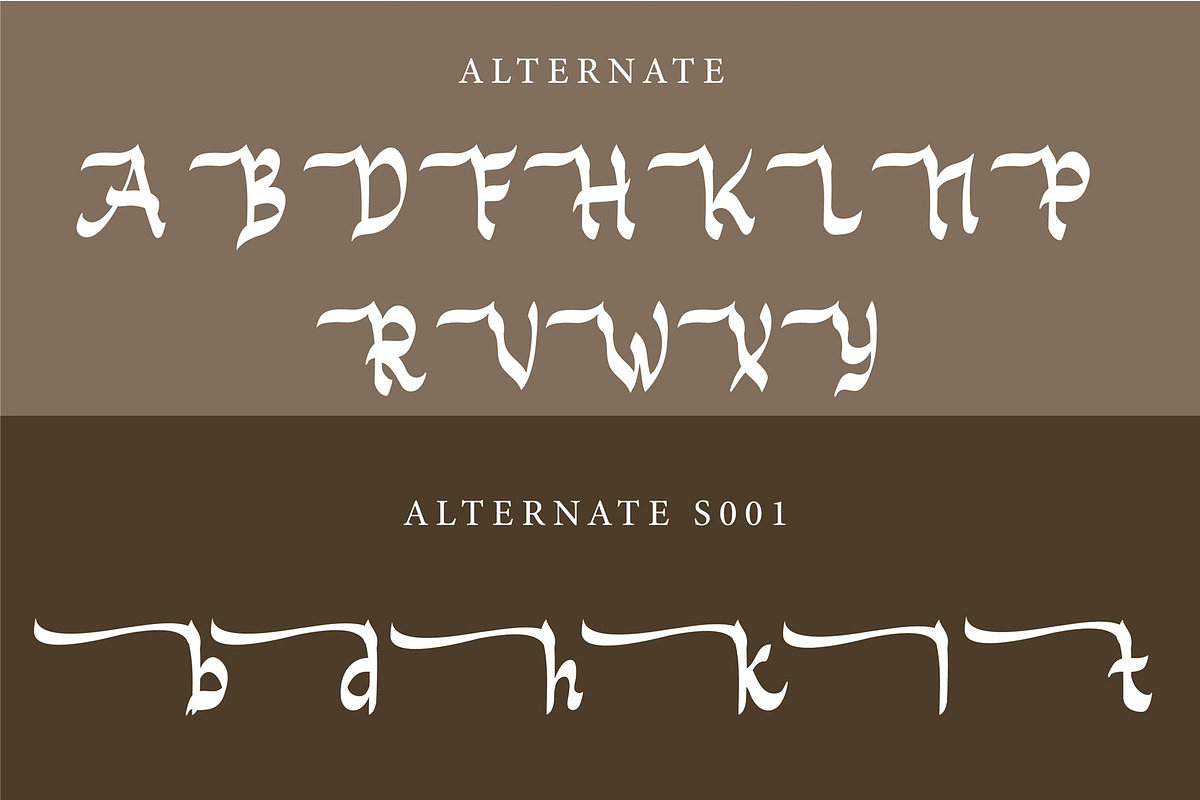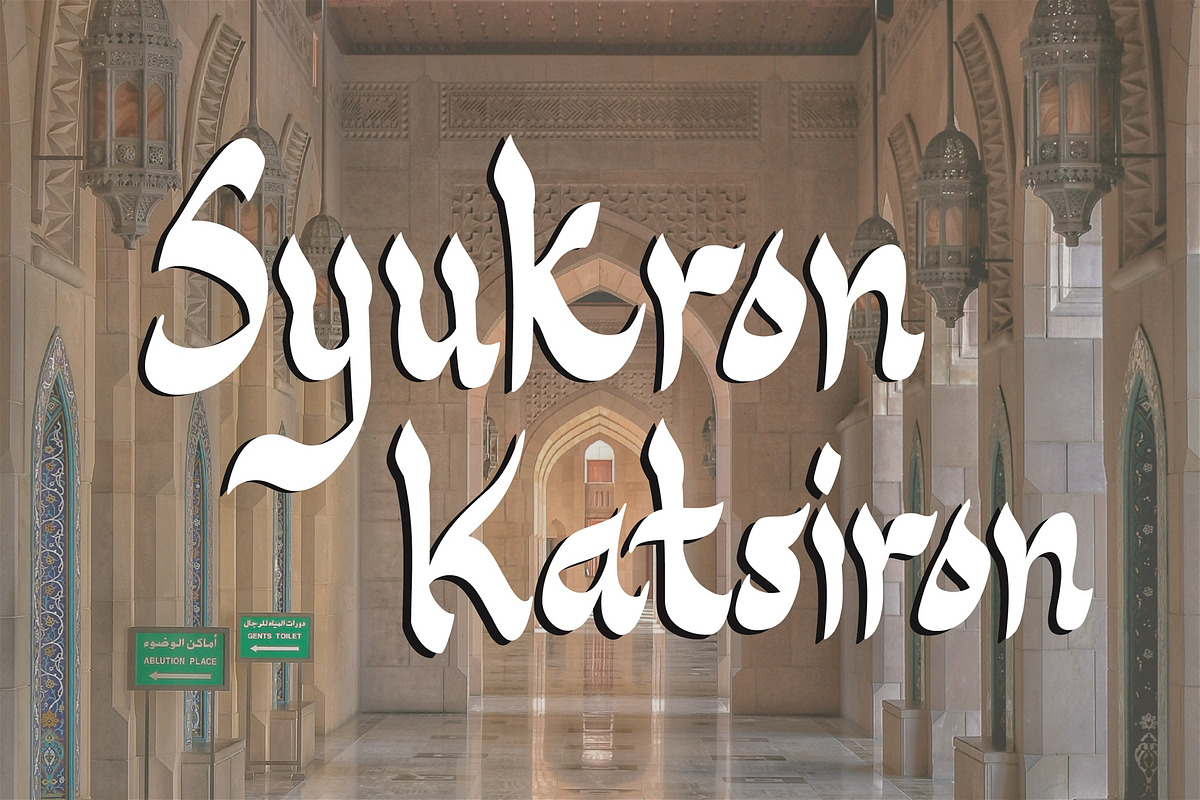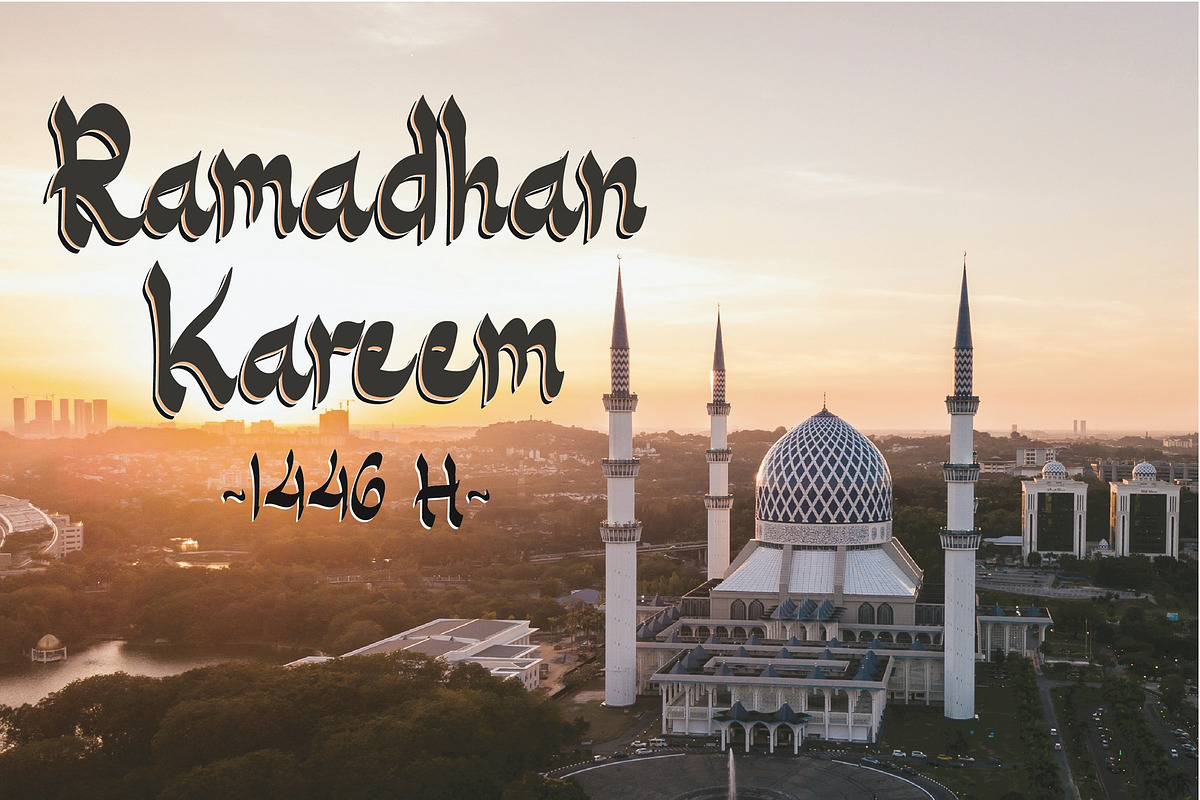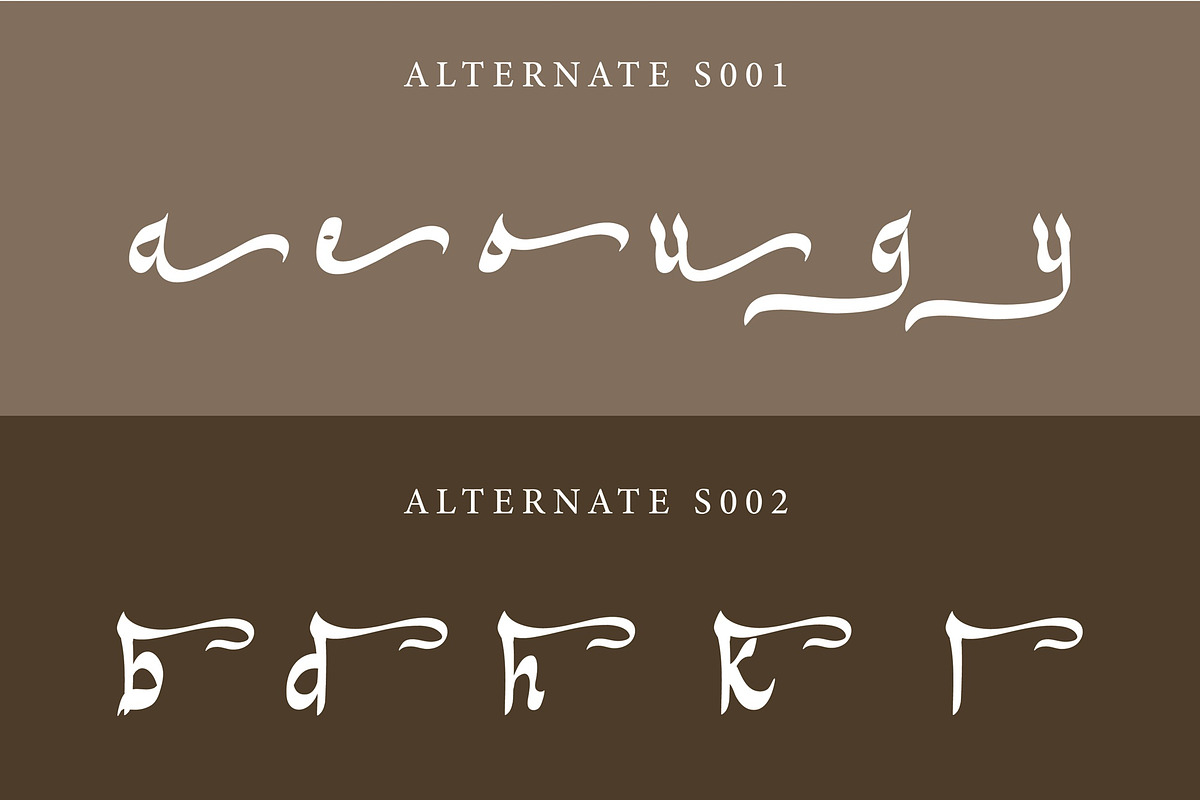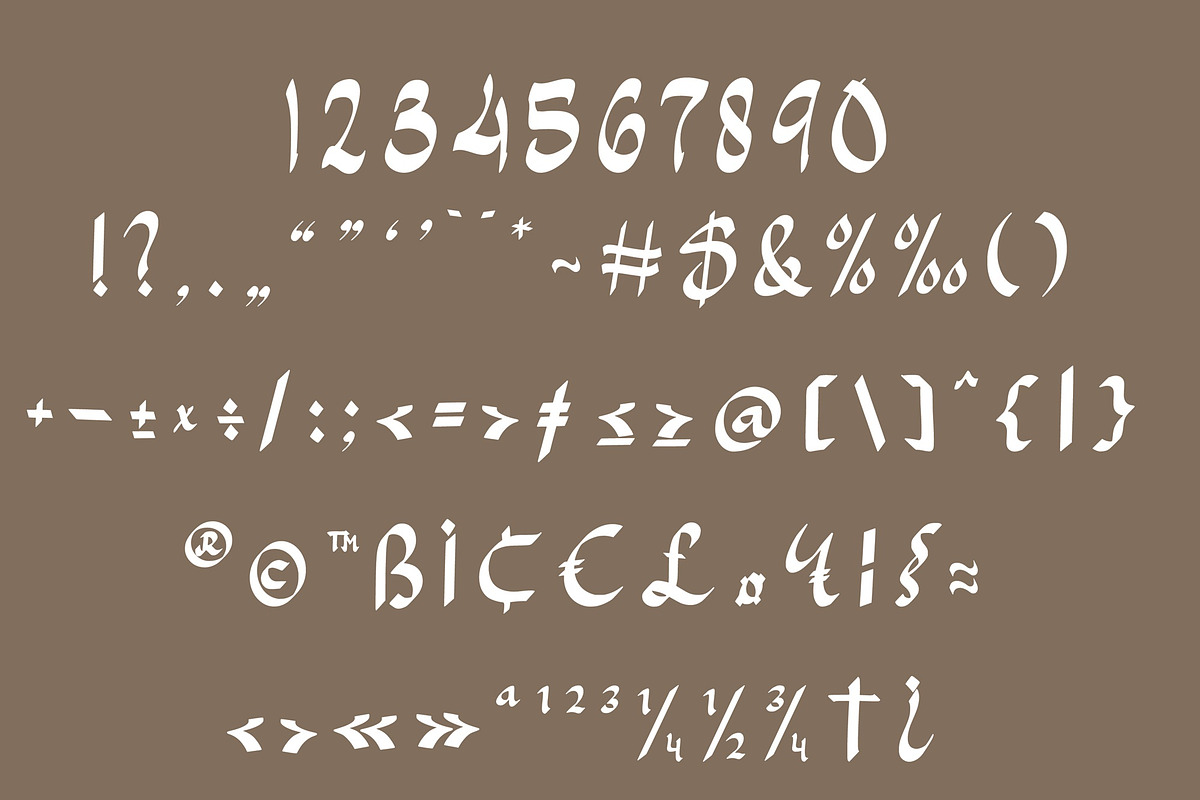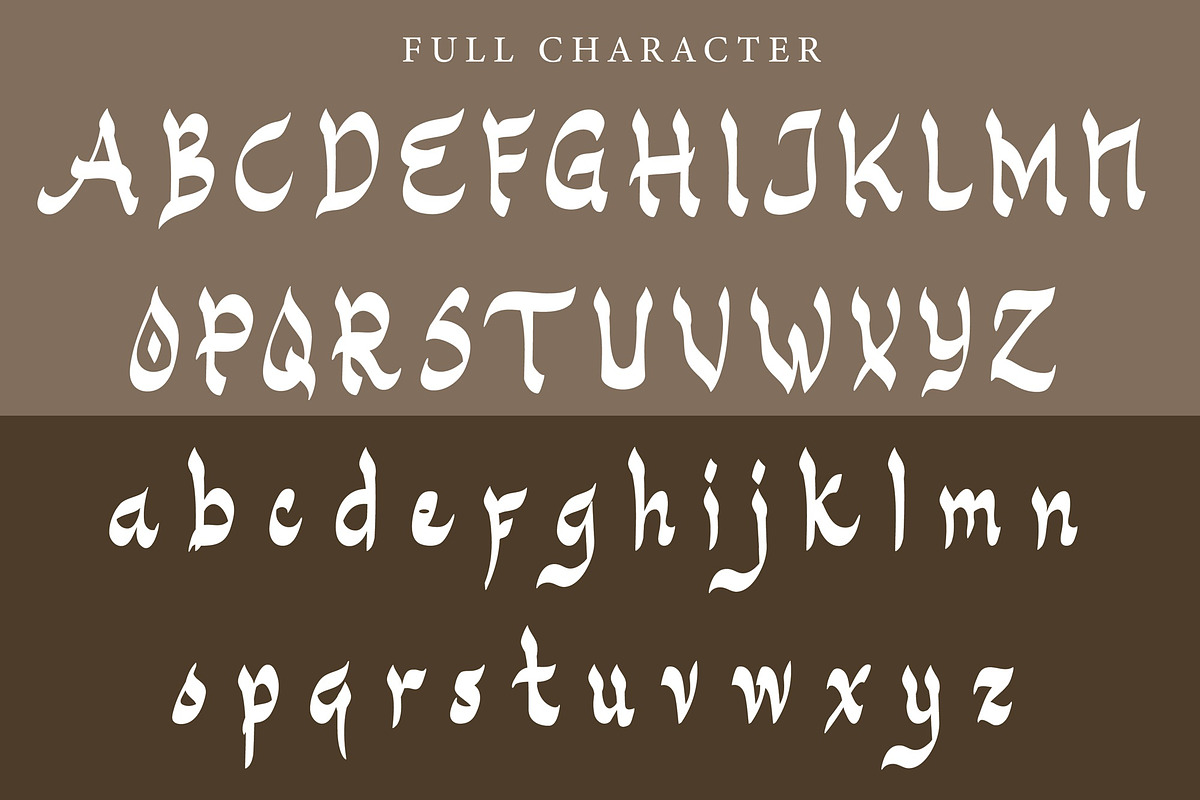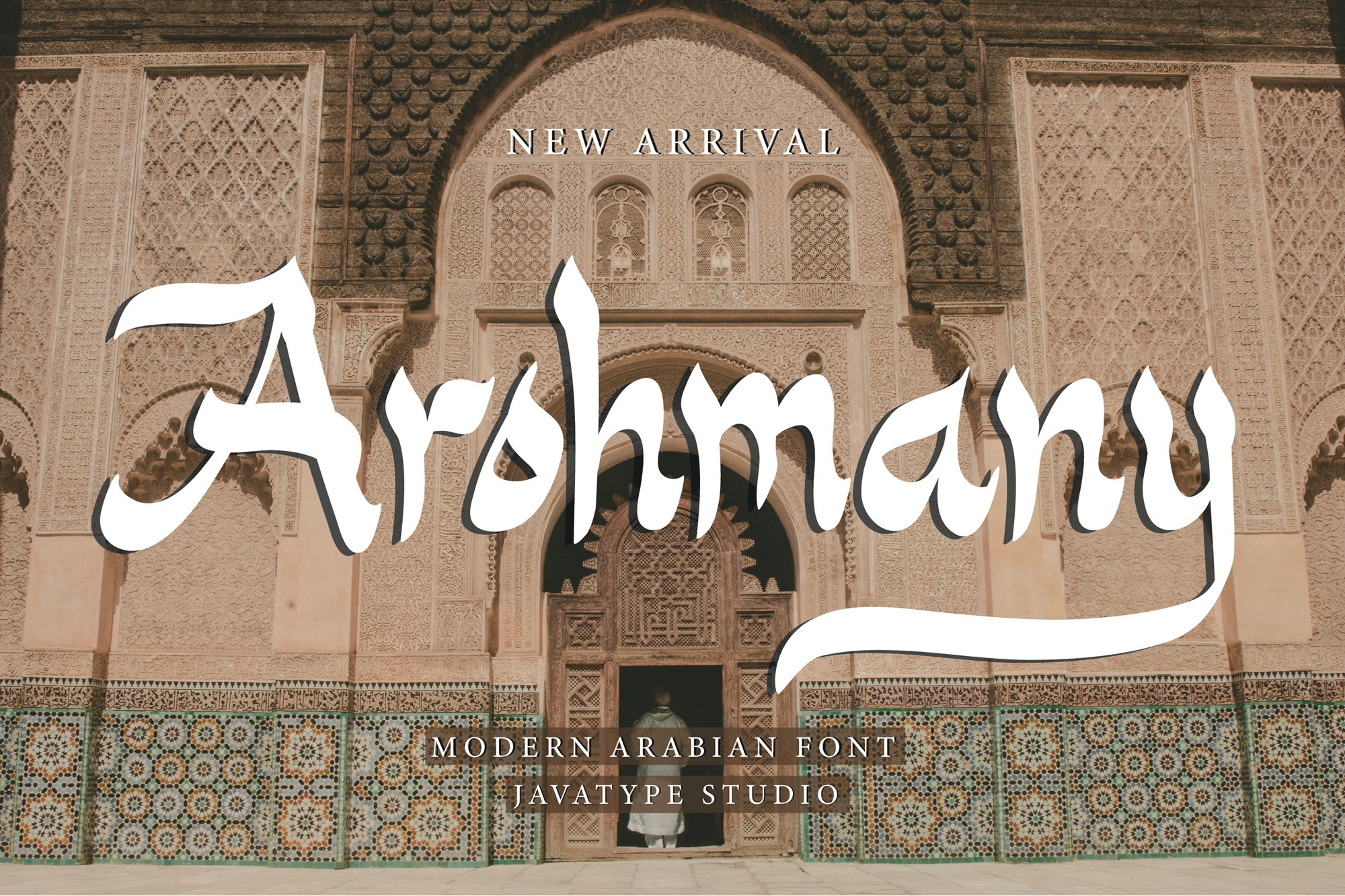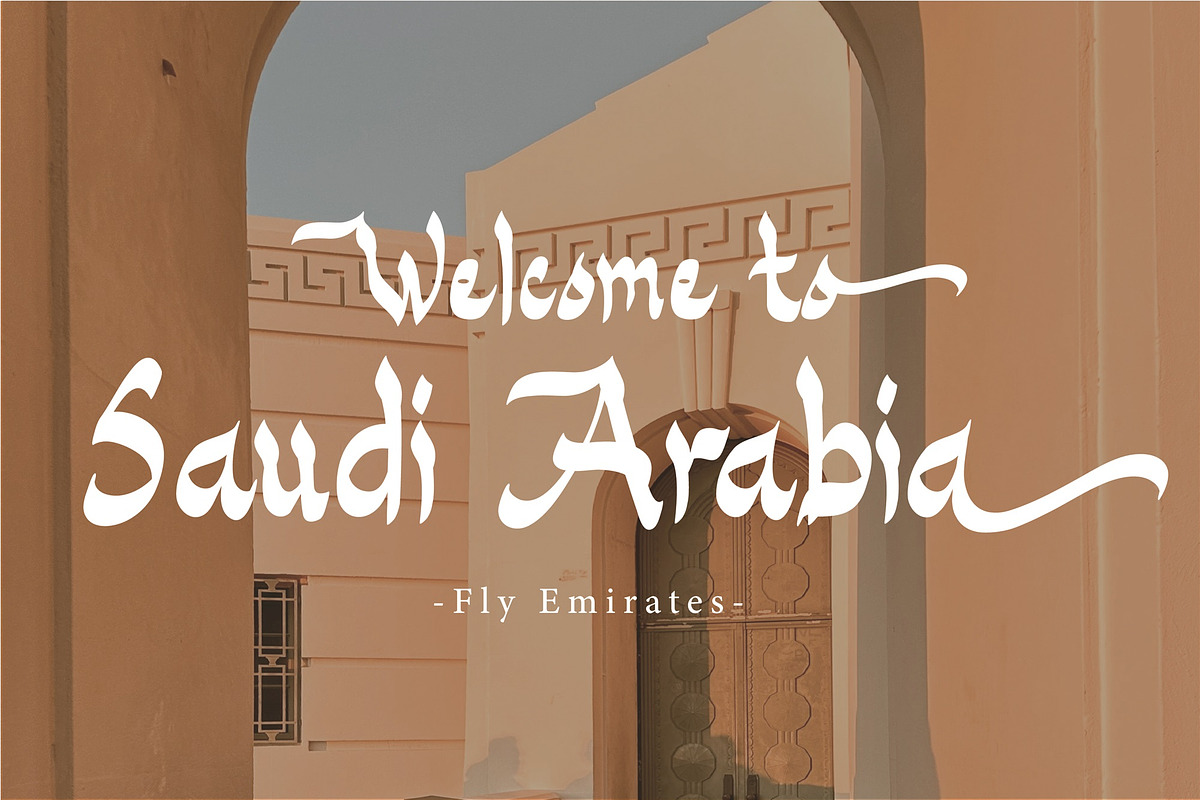
Arohmany a modern arabic font
Presenting Arohmany, an exquisite Arabic font meticulously crafted with a calligraphy pen. This unique typeface interweaves classic Arabic characters with contemporary stylistic elements, rendering an elegant fusion of past and present. Ideal for a range of creative ventures, Arohmany is a perfect fit for your unique designs - from eye-catching banners and trendy t-shirts to compelling photographic captions, engaging YouTube channels, and impactful advertisements. Immerse in the artistic charm of Arohmany, and let your design speak volumes.